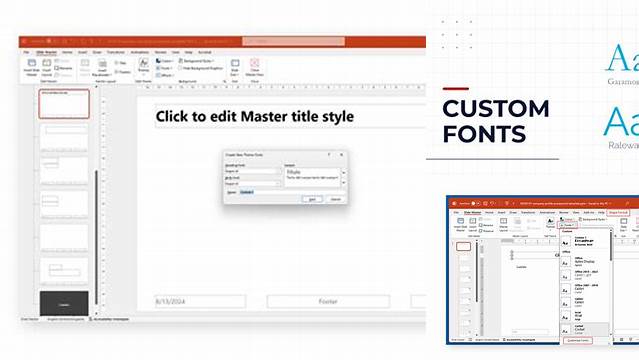
Mastering Custom Fonts In PowerPoint For Stunning Slides
Hey there, presentation pros and aspiring slide superstars! Ever look at a default PowerPoint font and think, "Meh, this just isn't cutting it"? You're not alone, guys. In the vast ocean of presentations, standing out is key, and one of the easiest and most impactful ways to do that is by ditching the usual suspects like Arial or Calibri and embracing the wonderful world of custom fonts. Seriously, a unique font can instantly elevate your slides from "just another presentation" to "wow, that looks professional!" This guide is your ultimate roadmap to adding custom fonts to PowerPoint, ensuring your presentations not only convey your message but also leave a lasting visual impression. We're going to dive deep into why custom fonts matter, where to find them, how to install them on your system, and most importantly, how to flawlessly integrate them into your PowerPoint masterpiece. So, buckle up, because we're about to make your slides look amazing!
Why Bother with Custom Fonts in PowerPoint?
Custom fonts in PowerPoint are more than just a stylistic choice; they're a powerful tool for branding, enhancing readability, and injecting personality into your presentations. Think about it: every brand, from Nike to Netflix, has a distinctive look, and a huge part of that is their typography. Using unique custom fonts allows you to bring that same level of professionalism and brand consistency to your slides, whether you're presenting for a corporate meeting, a university lecture, or a personal project. First off, let's talk about branding and identity. If your company or personal brand uses a specific font, integrating that font directly into your PowerPoint presentations creates a cohesive and instantly recognizable visual identity. This isn't just about looking good; it's about building trust and reinforcing your message through consistency. Imagine delivering a pitch where your slides perfectly match your business cards, website, and marketing materials – that's a massive win for professionalism, folks!
Beyond branding, custom fonts significantly impact the mood and tone of your presentation. A sleek, modern sans-serif font might convey innovation and efficiency, while an elegant serif font could suggest tradition and trustworthiness. A playful, handwritten style might be perfect for a creative brief but completely inappropriate for a financial report. The default fonts are safe, sure, but they’re also generic. They don't evoke emotion or contribute to your narrative beyond simply displaying text. By carefully selecting the right custom font, you can subtly influence how your audience perceives your content and even you as a presenter. It’s like choosing the right outfit for an important event – you wouldn't show up to a black-tie gala in flip-flops, right? The same principle applies to your fonts.
Furthermore, custom fonts can improve readability and engagement. While there are certainly some fantastic default fonts, the sheer variety of custom fonts available means you can find options specifically designed for on-screen readability, large headings, or even intricate data visualizations. Sometimes, a unique font, if chosen wisely, can make complex information appear less intimidating and more digestible. It grabs attention without being distracting, guiding the reader's eye through your content more effectively. And let's be honest, seeing the same old fonts repeatedly can lead to "slide fatigue" for your audience. A fresh, new font can pique their interest and make your slides feel more dynamic and less monotonous. It’s a subtle psychological trick that can make a huge difference in keeping your audience hooked. So, if you're serious about making your presentations pop and genuinely connecting with your audience, then learning how to add custom fonts to PowerPoint is absolutely essential. It's an investment in your communication, your brand, and your ability to leave a truly memorable impression. This isn't just about aesthetics; it's about effective communication, trust me!
- Adobe Fonts (formerly Typekit): If you're an Adobe Creative Cloud subscriber, you already have access to an incredible library of premium custom fonts through Adobe Fonts. These fonts are usually top-tier in quality and come with clear licensing for use in all your creative projects, including PowerPoint. The integration is seamless, making it a go-to for many designers.
- Creative Market, MyFonts, Fontspring: These are excellent marketplaces for paid custom fonts. If you're looking for something truly unique, exclusive, or from a specific designer, these are the places to go. While they come with a price tag, the quality, originality, and clear commercial licensing often justify the investment, especially for businesses or serious designers who want to create truly distinctive PowerPoint slides.
Now, about licensing – this is super important, guys! When you're choosing a custom font to add to PowerPoint, always, always check the license. Most fonts fall into categories like:
- Personal Use Only: Great for school projects or private presentations, but a definite no-go for anything related to your business or work.
- Free for Commercial Use: The holy grail! These fonts can be used for anything, including client presentations, marketing materials, and products you sell. Google Fonts and Font Squirrel often highlight these.
Remember, a custom font isn't just about making things look pretty; it's about making your message resonate more deeply, establishing a stronger brand identity, and standing out from the sea of generic slides. It's a game-changer for anyone serious about compelling communication. So go ahead, experiment with different styles, find the fonts that speak to your message, and don't be afraid to ditch the defaults. Your audience (and your design sensibilities) will thank you. Now get out there and start creating some truly stunning and unique PowerPoint presentations with your fantastic new font skills! You've got this!